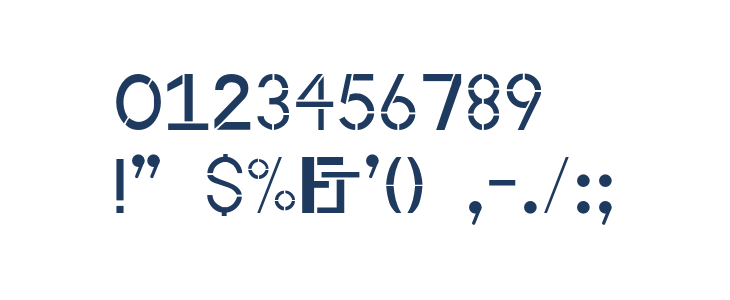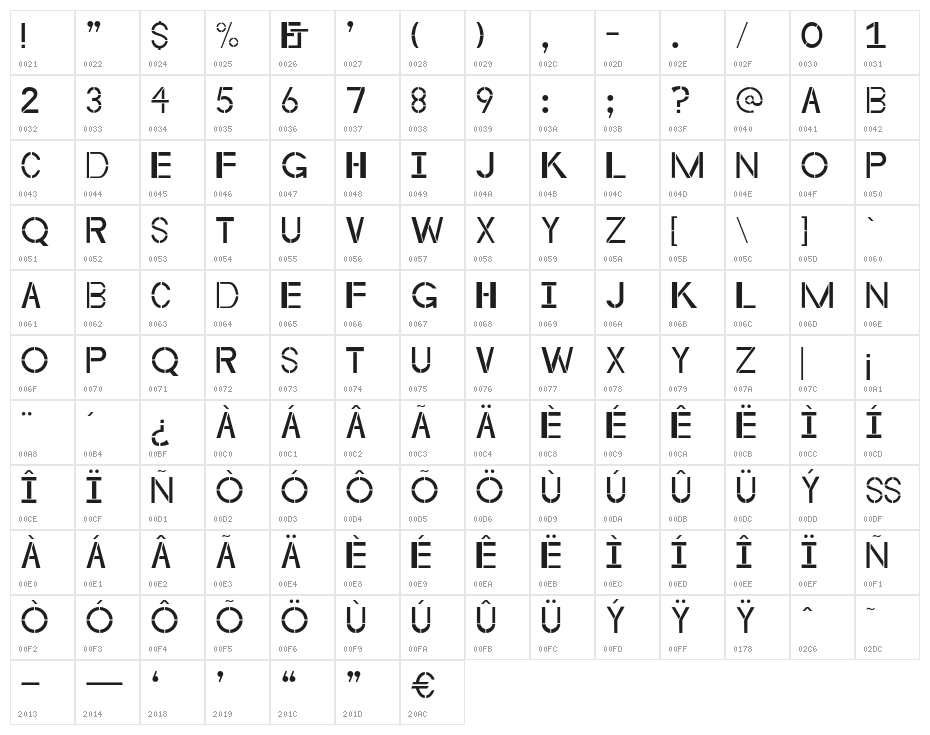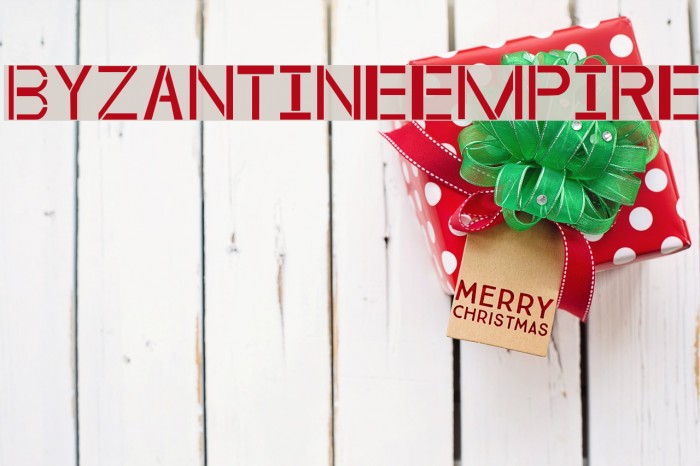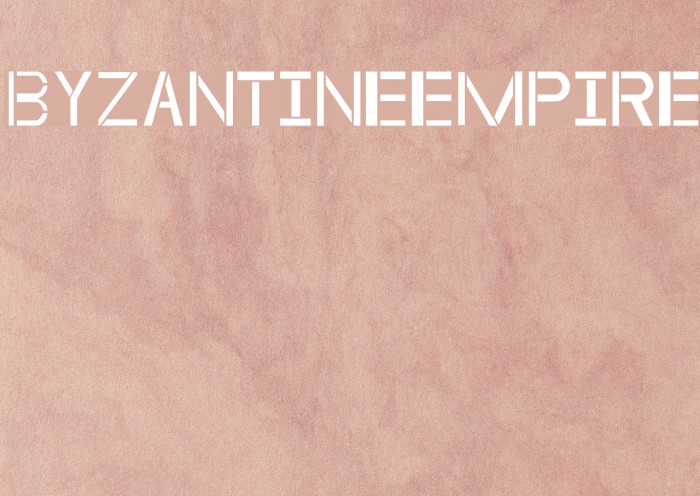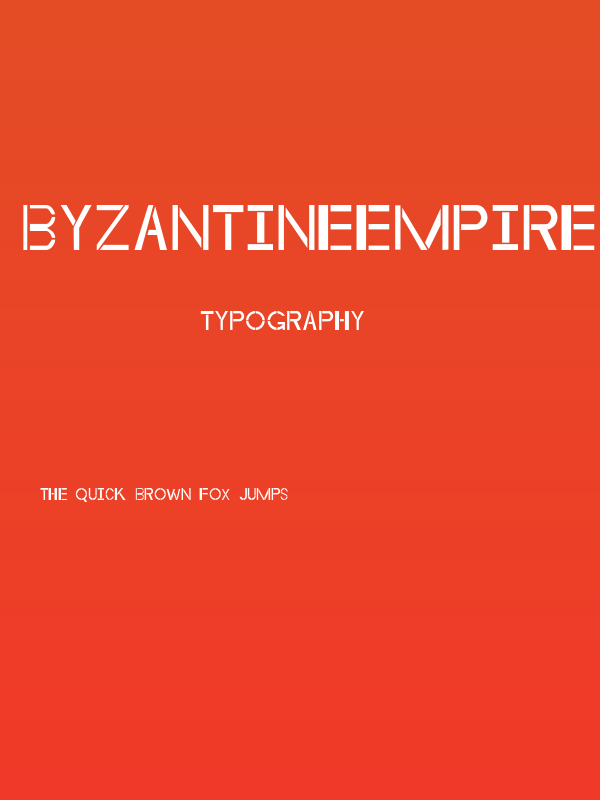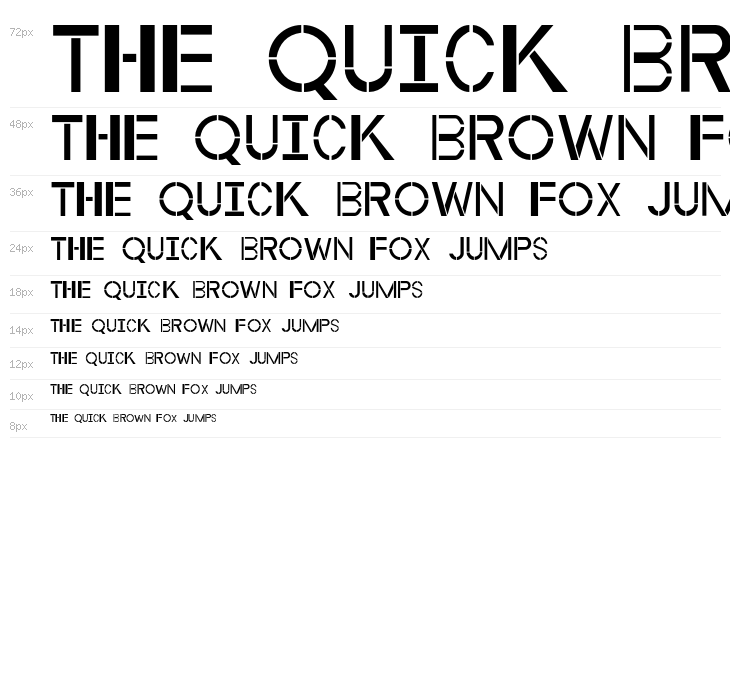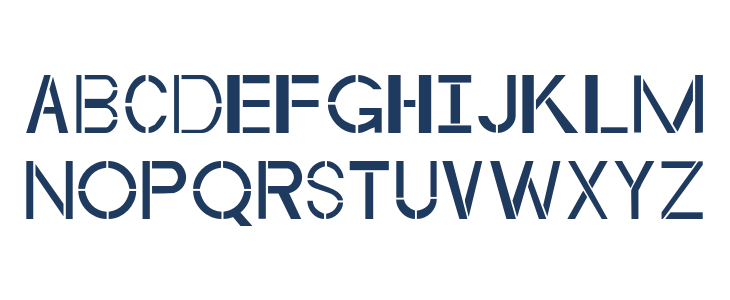
ByzantineEmpire Font
ByzantineEmpire Description
This font features a modern and geometric design with a unique stencil-like appearance. The characters are constructed with clean, straight lines and sharp angles, creating a bold and striking visual impact. The uppercase and lowercase letters maintain a consistent style, with certain segments of each character intentionally omitted to enhance the stencil effect. The numerals and special characters follow the same design principles, ensuring uniformity across the typeface. This font's distinct style makes it ideal for projects that require a contemporary and edgy aesthetic.
| Proposed Projects | Ideal for branding, posters, headlines, and any design requiring a contemporary and bold look. |